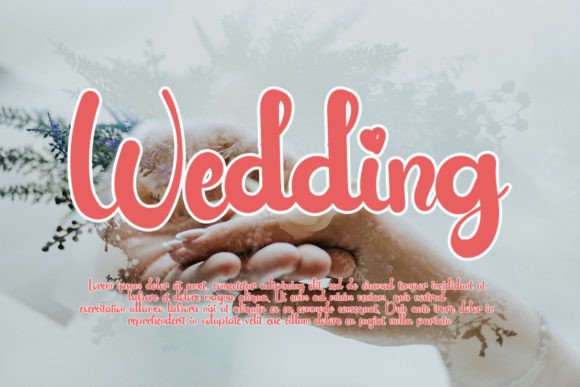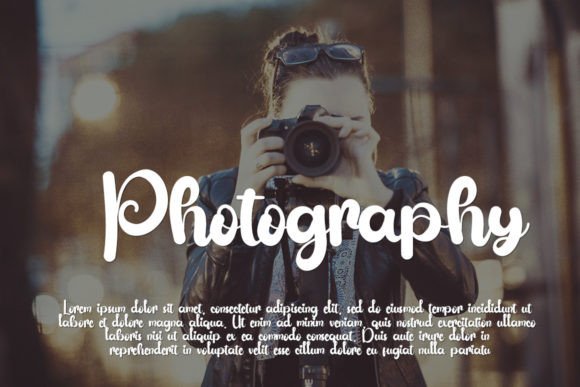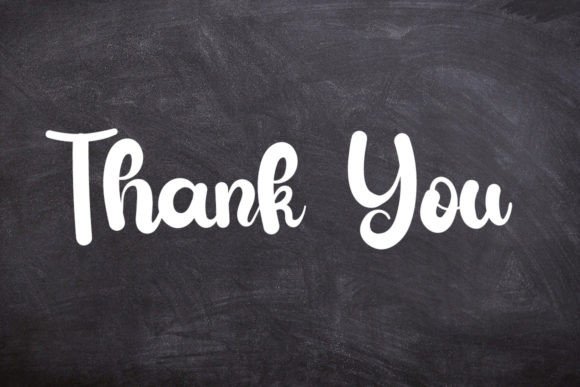
Introduction to Saintucky Font
You know that moment when you’re working on a design project, and you’re stuck trying to find the perfect font to match your vision? The one that will elevate your design from good to great, and make your audience take notice? For designers, this is a familiar feeling. But what if I told you that I’ve discovered a game-changing font that will make all your design dreams come true? Say hello to the stunning Saintucky Font, a script font that’s about to revolutionize your creative projects.
Whether you’re working on a wedding invitation, a branding project, or a social media post, Saintucky Font is the perfect choice to add a touch of elegance and sophistication to your designs. With its intricate, flowing lines and natural handwriting feel, this beautiful typeface is sure to capture the attention of your audience and create a lasting impression.
Key Features of Saintucky Font
- High-quality design resource ideal for creative projects, with a unique and stylish aesthetic.
- Includes a comprehensive set of glyphs, including uppercase and lowercase letters, numbers, and special characters.
- Perfect for use in logos, branding, typography, and other creative projects where a distinctive and modern look is desired.
Honest Review: Saintucky Font
I recently stumbled upon the Saintucky Font, a unique addition to my design resource library. In this review, I’ll share my honest thoughts on its strengths and weaknesses.
What works well: ✨ The Saintucky Font is a high-quality, hand-drawn font that’s perfect for creative projects requiring a personal touch. Its organic feel and subtle imperfections make it an excellent choice for designers looking to add some character to their work.
Limitations: ⚠️ While the Saintucky Font is an excellent choice for many projects, it may not be the best option for designs requiring strict precision or uniformity. Its hand-drawn nature can sometimes lead to inconsistencies in letter spacing and sizing.
Overall impression: The Saintucky Font is a valuable addition to any designer’s toolkit. Its unique character and high-quality design make it an excellent choice for creative projects. However, designers should be aware of its limitations and use it judiciously to achieve the desired look.
The Saintucky Font is a versatile and high-quality design resource ideal for various creative projects. This font offers a unique blend of style and sophistication, making it perfect for a wide range of applications.
The Saintucky Font is ideal for a variety of applications, including:
- Print materials (business cards, brochures, etc.)
- Digital graphics (social media posts, infographics, etc.)
Alternatives to Saintucky Font
The Great Vibes Font is a high-quality, elegant script font perfect for creative projects that require a touch of sophistication. It’s ideal for use in design resources like logos, invitations, and wedding cards. This font features a transparent background, making it easy to overlay on images or other design elements. Great Vibes Font is a free download and offers a unique, cursive style that’s similar to Saintucky Font but with a more refined and vintage feel.
The Lato Font is a modern sans-serif font designed for high-quality design projects. It’s a versatile font suitable for use in a wide range of creative projects, from business cards to websites. Lato Font features a clean and minimalist design with a transparent background, making it easy to customize and style. While it lacks the cursive flair of Saintucky Font, Lato Font is a reliable choice for designers who need a professional and modern look.